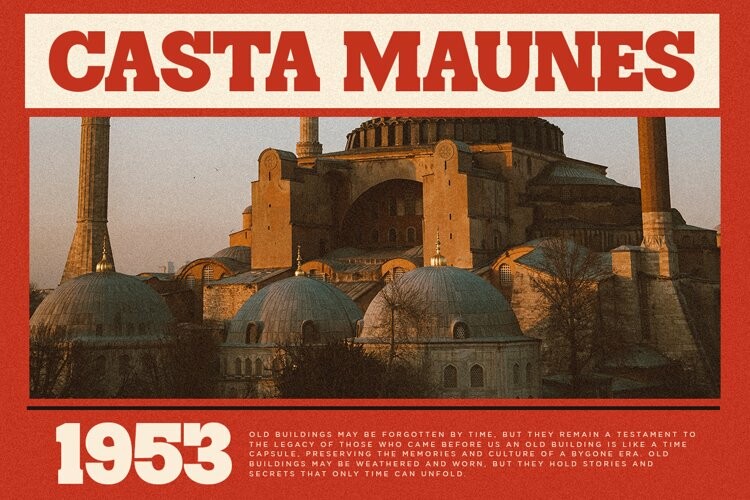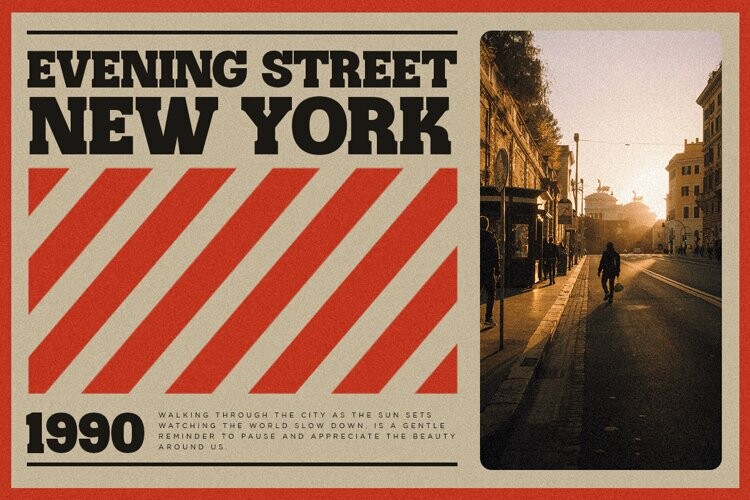
Catesoge | Retro Slab Font
Catesoge | Retro Slab Font ,Catesoge Is A Bold Slab Serif Typeface Inspired By Retro and Vintage Style. This font is perfect for stickers, retro projects, craft projects, shirts, svg designs, procreate designs, branding, blogs, logos, invitations and more!